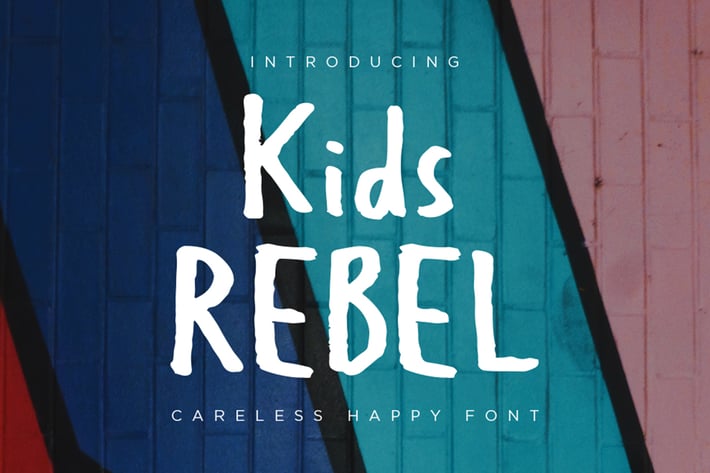
Kids Rebel - Happy Font
konstantinestudio
Everything they do will always look cute and honest. That's what the Kids Rebel came from. Deliver your message heart to heart with Kids Rebel font. Perfectly fit for kids branding, casual branding, storybook, mood board, social media content, website, cute logo, etc.